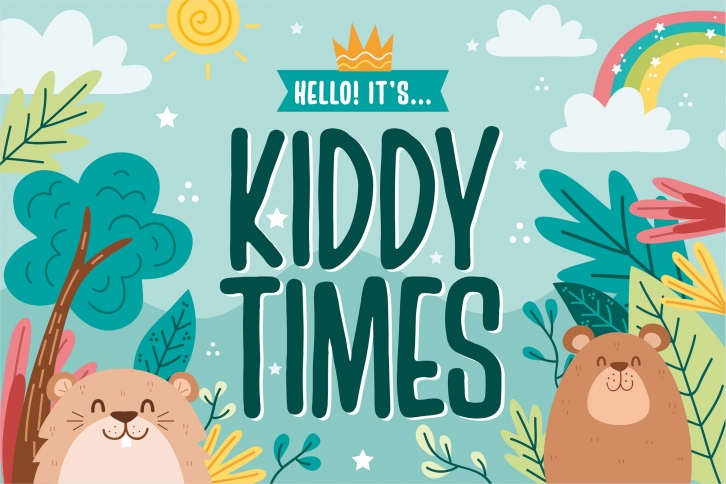
Kiddy Times is a beautiful font that was designed by Orenari. It's a great choice for designers and creatives who need such a font. It was released on June 29, 2020 and the file size is 12.77 MB. Kiddy Times may give a more youthful, expressive and casual look to your project. It is a very beautiful, refined, elegant, and high-quality font.